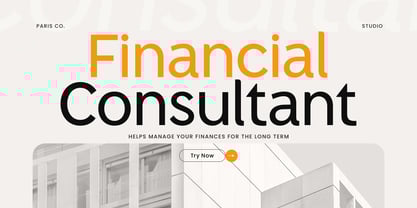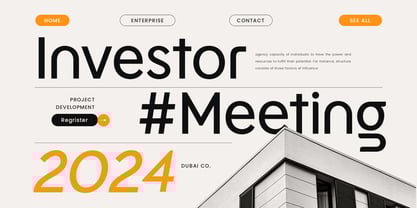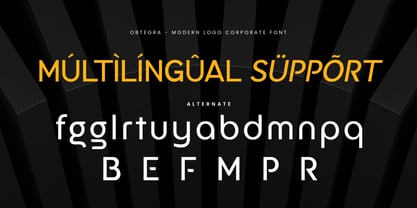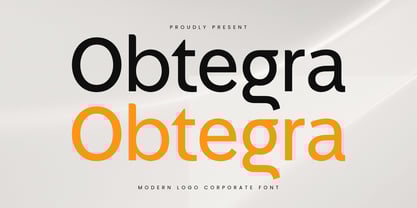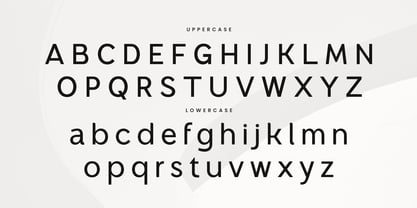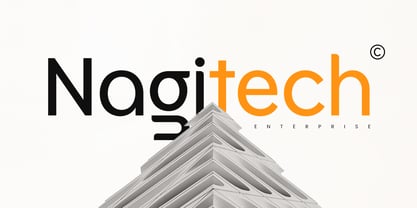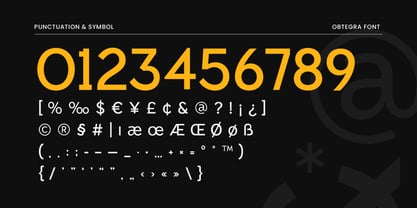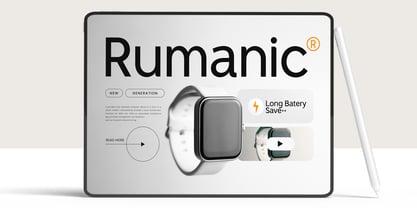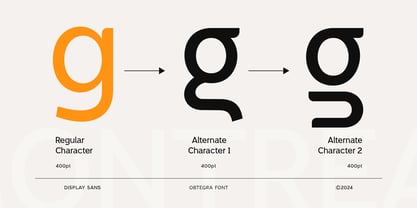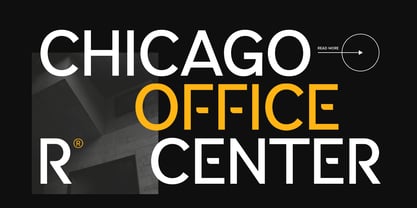
Obtegra
The Obtegra Font Family was designed by Zamroni Hamzah and published by Sensatype Studio. Obtegra contains 2 styles and family package options. More about this family
Introducing Obtegra, a font crafted to bring a touch of modern elegance to corporate branding. With its sleek and professional design, Obtegra is perfect for creating logos and branding materials that exude sophistication and contemporary style.
The Story Behind Obtegra:
Obtegra was inspired by the vibrant and cosmopolitan city it’s named after. Known for its blend of old-world charm and modern innovation, Obtegra captures the essence of a dynamic business environment. Each character in Obtegra is meticulously designed to reflect a balance of tradition and modernity, making it an ideal choice for corporate identities that want to stand out while maintaining a professional appearance.
Obtegra Font Features:
• Available in 2 Styles: To Make the design perfect, we prepared for Regular and Italic Version.
• Modern Design: Sleek and minimalist, perfect for corporate and business use.
• Professional Aesthetics: Clean lines and elegant curves that convey sophistication.
• Versatile Usage: Ideal for logos, business cards, corporate presentations, and branding materials.
• High Legibility: Clear and sharp, ensuring your message is communicated effectively.
• Elegant Simplicity: Combines modern style with a professional look.
• Inspirational Previews: Includes sample designs to spark your creativity.
Perfect For:
• Corporate Branding: Create sleek and memorable logos for businesses and companies.
• Business Materials: Design elegant business cards, letterheads, and office stationery.
• Presentations: Develop polished and modern presentations for corporate meetings and pitches.
• Marketing Materials: Enhance brochures, flyers, and advertisements with a touch of elegance.
With Obtegra, your corporate designs will achieve a new level of professionalism and style. Whether you're working on branding, marketing materials, or business presentations, Obtegra provides the perfect blend of modern design and corporate sophistication. Elevate your brand with Obtegra and make a lasting impression in the business world.